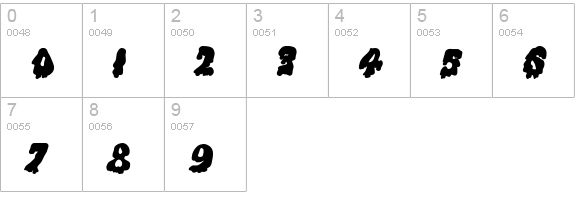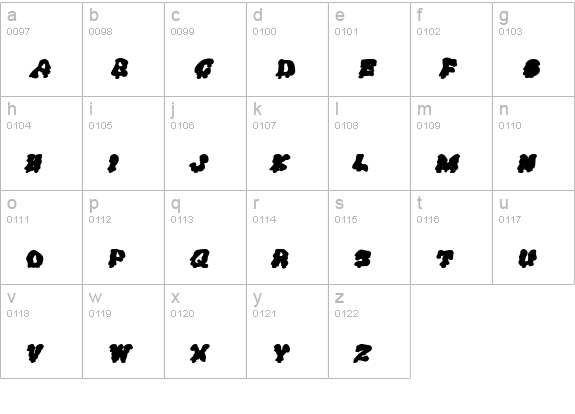
Introducing Gremlin Solid BoldItalic font - a bold and dynamic typeface that exudes strength and creativity. With its solid and sturdy appearance, this font is perfect for making a bold statement in any design project. The bold italic style adds a touch of elegance and sophistication, making it versatile for a wide range of applications. What's even better is that Gremlin Solid BoldItalic font is available for free download at FontsMarket.com! Whether you're designing a logo, poster, or any other creative project, this font will elevate your design to the next level. Don't miss out on the opportunity to add this striking typeface to your font collection today.